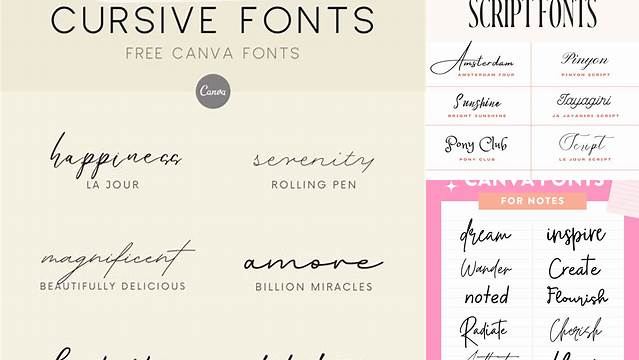
Aesthetic Cursive Fonts In Canva: Guide & Inspiration
Hey guys! Are you looking to add a touch of elegance and personality to your Canva designs? One of the easiest ways to do that is by using aesthetic cursive fonts. Canva has a ton of options, but finding the perfect one can sometimes feel like searching for a needle in a haystack. Don't worry, though! This guide is here to help you navigate the world of cursive fonts in Canva and find the perfect match for your projects. We'll explore different styles, give you tips on how to use them effectively, and even share some of our favorite font pairings. Let's dive in!
What Makes a Font 'Aesthetic'?
So, what exactly do we mean by "aesthetic"? It's a term that gets thrown around a lot, but essentially, an aesthetic font is one that's visually pleasing and evokes a certain feeling or mood. For cursive fonts, this could mean anything from playful and whimsical to sophisticated and elegant. Aesthetic cursive fonts often have unique flourishes, interesting letterforms, and a general sense of artistic flair. Think about the overall vibe you're going for in your design. Are you creating a logo for a bohemian clothing brand? Or perhaps you're designing wedding invitations? The aesthetic of the font should complement the overall message and style of your project. Choosing the right aesthetic cursive font is about finding one that resonates with your personal taste and enhances the visual appeal of your design. Remember, the goal is to create a design that's not only beautiful but also communicates effectively. Take your time to explore the different options available and don't be afraid to experiment until you find the perfect fit. Don't be afraid to mix and match different styles, but remember to maintain a sense of visual harmony. Combining an aesthetic cursive font with a clean, sans-serif font can create a striking contrast that adds visual interest to your design. Ultimately, the best way to determine if a font is aesthetic is to simply trust your instincts. If it looks good to you and fits the overall vibe of your project, then go for it! Now that we've defined what makes a font aesthetic, let's explore some of the specific types of cursive fonts available in Canva.
Best Script Fonts for Canva
Canva boasts a fantastic selection of script fonts, each offering a unique feel. When you are looking for the best script fonts for Canva consider things like readability and how well it pairs with other design elements. Some popular choices include "Brush Script MT," known for its flowing, handwritten style, and "Pacifico," a playful and friendly option. For a more elegant touch, try "Great Vibes" or "Allura." Experiment with different fonts to find the perfect match for your project's aesthetic. Remember that the best script fonts for Canva depends on your project requirements, so take your time to explore and test out different options. Some fonts look great on their own but might not pair well with others. Consider the overall message you want to convey and choose a font that aligns with that message. For example, a formal invitation might call for a more sophisticated script font, while a fun and playful design might benefit from a more whimsical option. Don't be afraid to use a combination of script fonts and other font styles to create visual interest and hierarchy in your design. Just make sure that the fonts you choose complement each other and create a cohesive look. Finally, remember to consider the readability of your chosen font. While a beautiful script font can add a touch of elegance to your design, it's important to make sure that it's still easy to read. Choose a font that's clear and legible, even at smaller sizes. With a little experimentation, you'll be able to find the perfect script font for your next Canva project. So get creative and have fun!
Free Cursive Fonts on Canva
One of the great things about Canva is that it offers a wide range of free cursive fonts. Navigating free cursive fonts on Canva lets you create stunning designs without spending extra money. Fonts like "Alex Brush" and "Dancing Script" are excellent free options that add a touch of elegance and personality to your projects. Always check the font's license if using it for commercial purposes. Ensure your free cursive fonts on Canva are suitable for commercial use to avoid any copyright issues later on. Many designers appreciate the accessibility of these fonts, as they allow for creativity without financial constraints. Remember that even though they are free, these fonts can still produce high-quality results. You can also combine these fonts with premium elements if your design calls for it. To maximize the impact of your free cursive fonts on Canva, experiment with different sizes, colors, and spacing. Even a simple change in these elements can significantly affect the overall look and feel of your design. Furthermore, free fonts are frequently updated and improved, meaning you always have fresh options to consider. Consider exploring user tutorials and templates that also feature free cursive fonts, as these can provide inspiration and save time. With a bit of creativity, you can create stunning visuals using nothing but Canva's free resources. So go ahead and unleash your imagination without worrying about budget limitations!
Premium Cursive Fonts in Canva
For those seeking more unique and elaborate options, Canva also offers a selection of premium cursive fonts. Premium cursive fonts in Canva often come with more intricate designs and ligatures, providing a refined touch. While they require a Canva Pro subscription or individual purchase, the added sophistication can be worth the investment. These fonts may include additional stylistic sets, offering further customization. When considering premium cursive fonts in Canva, think about the long-term value for your design needs. If you frequently work on projects that demand a high level of elegance, a premium font could be a worthwhile addition to your toolkit. The benefit of paying for these fonts is that they often come with more customization options and support. The premium font selection can elevate your design projects to a new level of professionalism and sophistication. Make sure to fully explore the stylistic options available before committing to a purchase. With premium cursive fonts in Canva, you're not just buying a font; you're investing in a design asset that enhances the overall appeal of your work.
Pairing Cursive Fonts with Other Fonts
Aesthetic designs often involve a harmonious blend of different fonts. Pairing cursive fonts with other fonts is an art that requires some understanding of typography. Typically, pairing a cursive font with a simpler sans-serif font works well. For example, using a cursive font for headings and a sans-serif font for body text can create a balanced and visually appealing design. Experiment with different combinations to find what works best for your specific project. Consider the weight and size of the fonts to ensure they complement each other. When pairing cursive fonts with other fonts, think about the overall tone and style you are trying to achieve. A formal design might benefit from a pairing of a sophisticated cursive font with a classic serif font. In contrast, a more casual design might pair a playful cursive font with a modern sans-serif font. Always ensure the chosen fonts are legible and do not clash with one another. The goal of pairing cursive fonts with other fonts is to create a cohesive and visually appealing design that effectively communicates your message. Don't be afraid to try unexpected pairings, but always maintain a sense of balance and harmony. It's often helpful to look at examples of successful font pairings for inspiration. Additionally, font pairing tools and resources can provide suggestions and guidance. Remember that the right font pairing can significantly enhance the overall impact of your design. So take the time to experiment and find the perfect combination for your project.
Using Cursive Fonts for Logos
Cursive fonts can add a unique and memorable touch to logos. When using cursive fonts for logos, ensure that the font is legible and scalable. Logos need to look good in various sizes, from small website favicons to large banners. Choose a cursive font that reflects your brand's personality and values. For instance, a luxury brand might opt for an elegant and sophisticated cursive font, while a creative brand might choose a more playful and whimsical option. Simplify the logo design to keep it clean and uncluttered. If you want to explore using cursive fonts for logos, make sure that the selected font is clear and easily recognizable. Avoid fonts that are too ornate or difficult to read at a glance. Ensure that the font works well with the other elements of your logo, such as the icon or tagline. A well-designed logo can significantly enhance brand recognition and credibility. Consider testing the logo on different backgrounds and in different colors to ensure it looks good in various contexts. Gather feedback from potential customers or stakeholders to get their opinions on the logo design. The key to using cursive fonts for logos is to strike a balance between creativity and functionality. A logo should be both visually appealing and easily recognizable.
Cursive Fonts for Wedding Invitations
Cursive fonts for wedding invitations are a classic choice for adding elegance and romance. When selecting a cursive font, consider the overall theme and style of the wedding. A formal wedding might call for a traditional and sophisticated cursive font, while a more rustic or bohemian wedding might suit a more whimsical or handwritten style. Ensure that the font is legible and easy to read, especially for important details such as the date, time, and location. Emphasize the important words when using cursive fonts for wedding invitations to give the wedding a touch of class. Pair the cursive font with a simpler font for the body text to maintain readability. Consider using a different color or size for the cursive font to make it stand out. Also, make sure that the font complements the other elements of the invitation, such as the paper stock, colors, and embellishments. Incorporating special design touches elevates the cursive fonts for wedding invitations to give a great impression on the guests. Proofread the invitation carefully to ensure there are no errors in spelling or grammar. Order a sample print of the invitation to see how the font looks in person. With careful planning and attention to detail, you can create stunning wedding invitations that reflect your unique style and personality.
Cursive Fonts for Social Media Graphics
Cursive fonts for social media graphics can help your content stand out in a crowded feed. Choose fonts that align with your brand's aesthetic. A consistent look across all your graphics helps reinforce your brand identity. For informal social media platforms like Twitter, using cursive fonts adds a personal touch. Ensure the font is legible even on small screens. When using cursive fonts for social media graphics, consider the size of your graphic and the amount of text you want to include. Too much text in a cursive font can make the graphic look cluttered and difficult to read. Instead, use the cursive font sparingly, such as for headings or quotes. Pair the cursive font with a simpler font for the body text to maintain readability. Consider using contrasting colors to make the cursive font stand out. If you want to effectively leverage cursive fonts for social media graphics, explore which fonts resonate with your target audience. Create multiple versions of your graphics with different fonts to see which ones perform best. Also, remember that social media algorithms favor visually appealing content, so using a well-chosen cursive font can help your graphics get noticed.
Alright, guys, that wraps up our deep dive into aesthetic cursive fonts in Canva! Hopefully, you've got a ton of inspiration and practical tips to elevate your designs. Remember, the key is to experiment, have fun, and find what works best for your unique style. Happy designing!